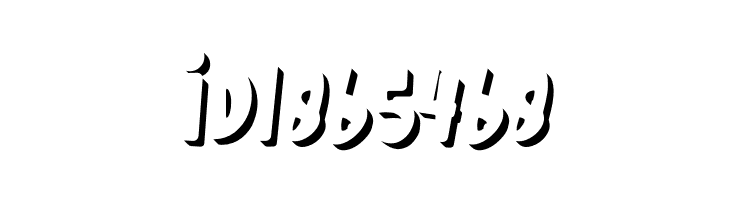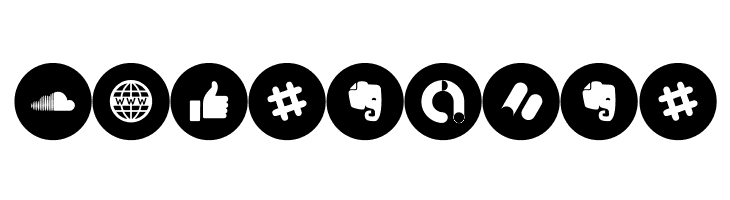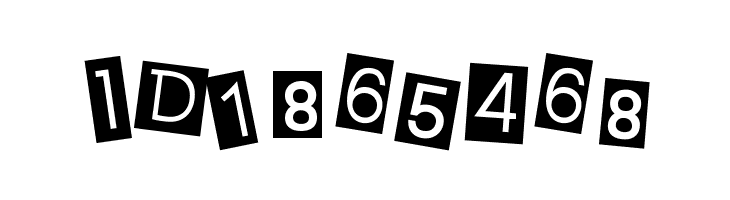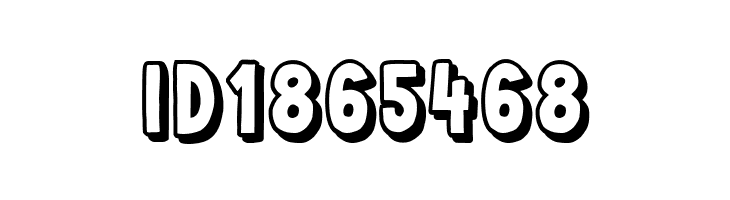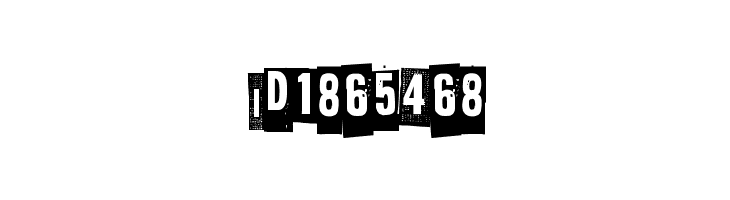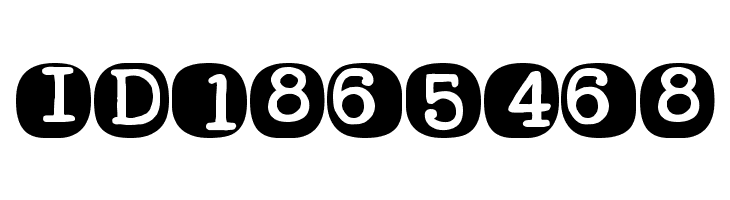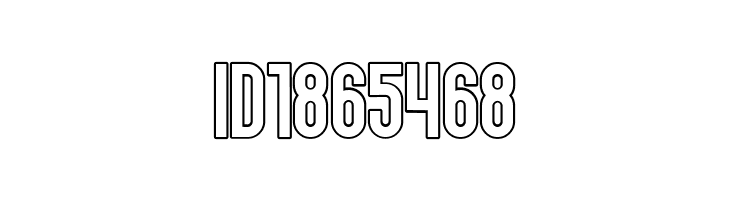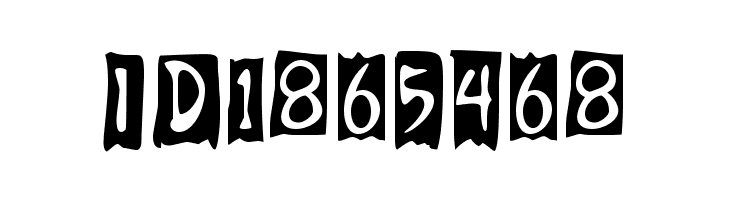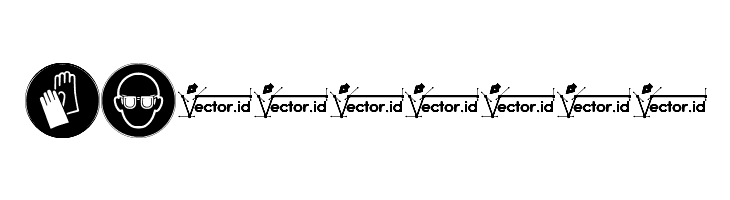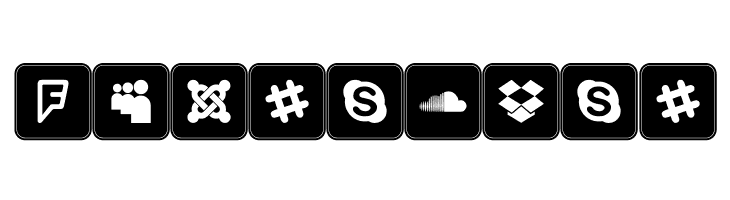
A playful, shadowed font with bold, dynamic characters.
Bold, geometric sans-serif icons with a modern, unified style.
A bold, shadowed font with a playful, three-dimensional look.
A bold, distressed font with a ransom note style.
A playful, bold font with characters in rounded black squares, offering a modern and retro vibe.
A bold, outlined font with a modern and geometric style.
Pictogram font with ISO 7010 mandatory safety symbols.
Uniform, bold, monochrome social media and web service icon set.